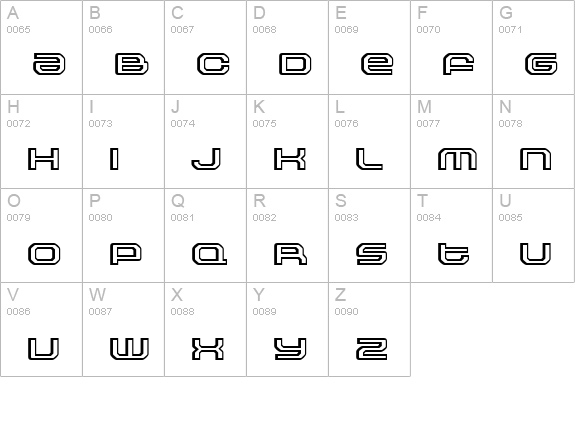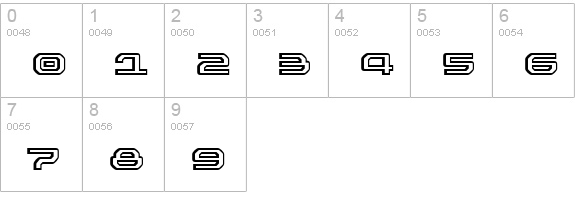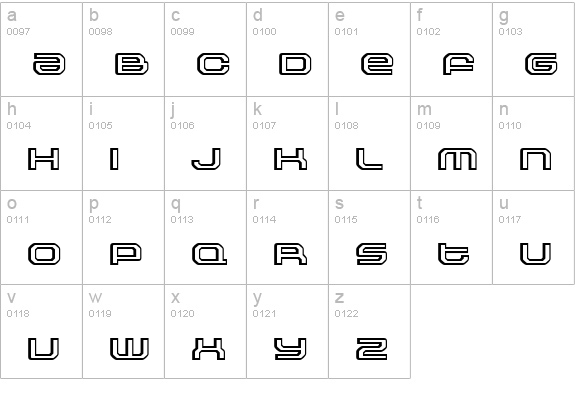
Outlander-White Font Details
Outlander-White font is a beautifully crafted typeface that exudes elegance and sophistication. Its delicate curves and sharp lines create a stunning visual impact, making it perfect for a wide range of design projects. The clean, modern look of this font makes it versatile and suitable for both digital and print applications. What sets Outlander-White font apart is its unique blend of classic and contemporary design elements, giving it a timeless appeal that will never go out of style. Whether you're designing a logo, website, or branding materials, this font is sure to make a bold statement and leave a lasting impression on your audience. Best of all, Outlander-White font is available for free download at FontsMarket.com, making it accessible to designers of all skill levels. Don't miss out on the opportunity to add this stunning font to your collection and elevate your design projects to the next level.